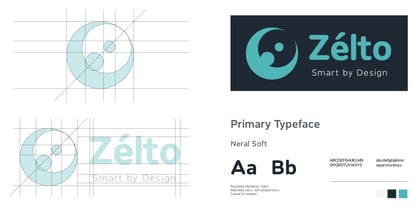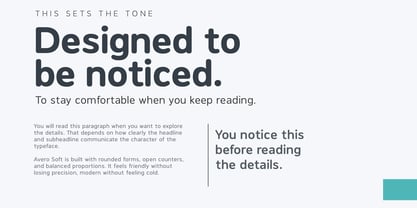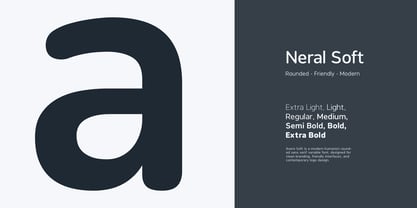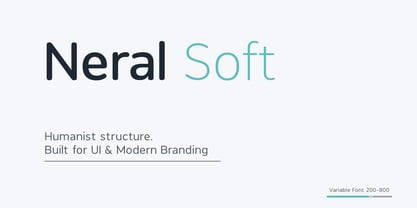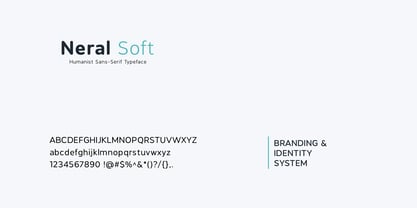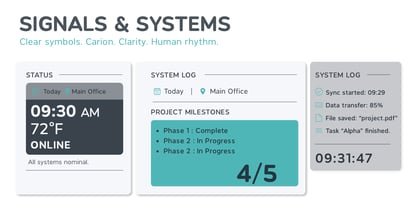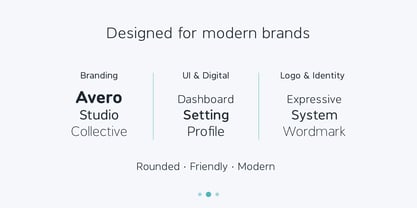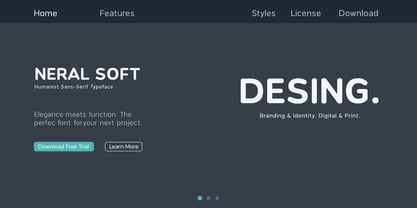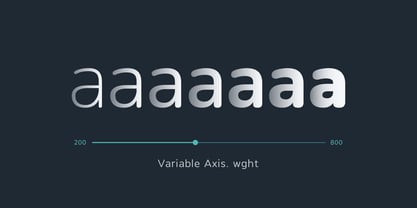
Neral Soft
by XdCreative
The Neral Soft Font Family was designed by Faldy Kudo and published by XdCreative. Neral Soft contains 8 styles and family package options. More about this family
Neral Soft is a rounded humanist sans serif designed for modern interfaces and contemporary branding. Built on a clear humanist structure, Neral Soft balances precision with warmth. Its softened terminals and open forms create a friendly yet professional tone, ensuring excellent readability across UI design, digital products, editorial layouts, and brand systems. The family includes 7 carefully crafted weights, ranging from Extra Light to Extra Bold, offering flexibility for both subtle typography and strong visual hierarchy. Neral Soft is also available as a variable font, allowing designers to fine-tune weight dynamically for responsive layouts, performance-optimized web use, and scalable design systems. With clean proportions and modern spacing, Neral Soft performs reliably in both text and display sizes — a versatile sans serif that feels approachable, functional, and refined. Perfect for: UI & UX design, branding, startups, web & app interfaces, editorial design, dashboards, and digital systems.
Designers: Faldy Kudo
Foundry: XdCreative